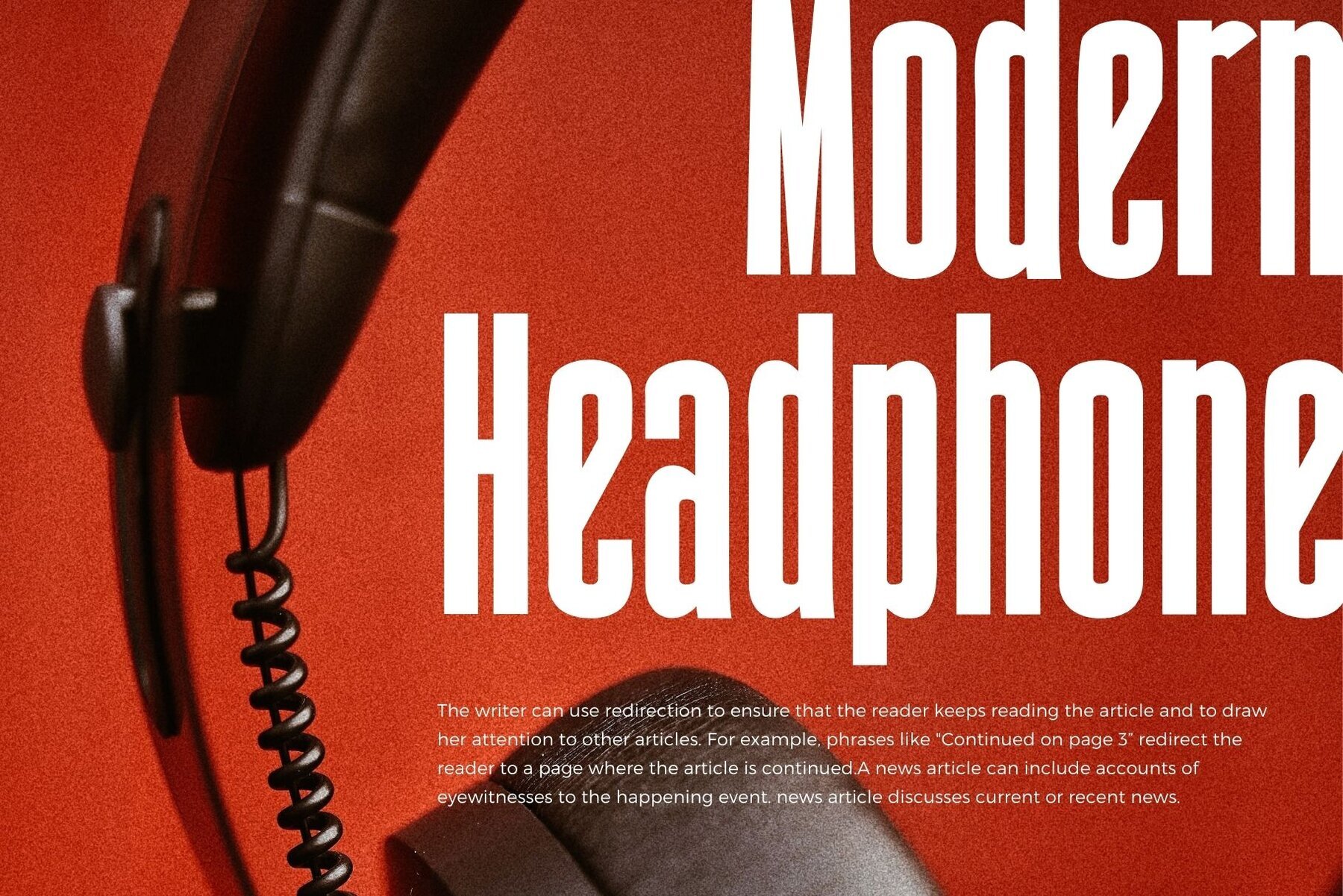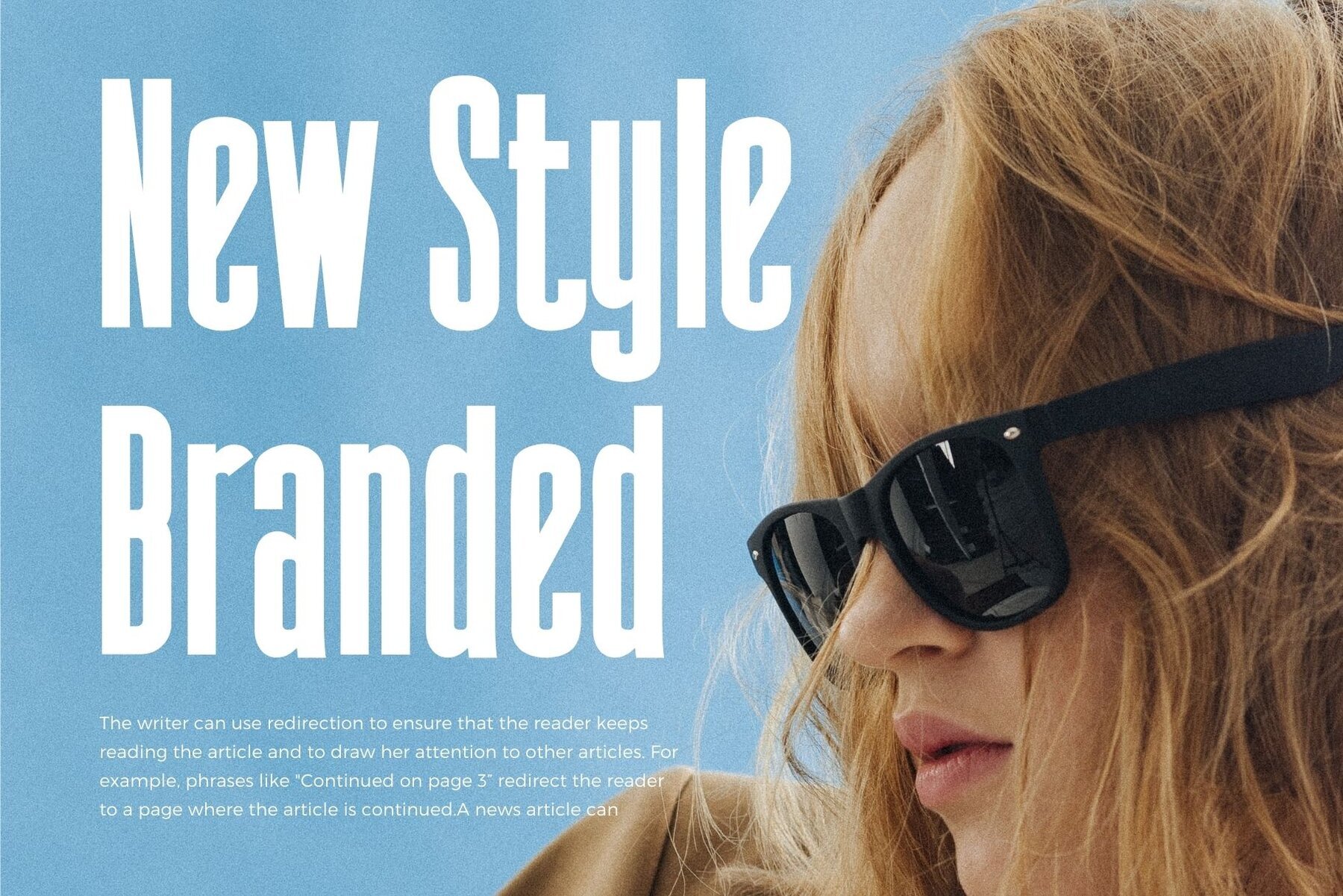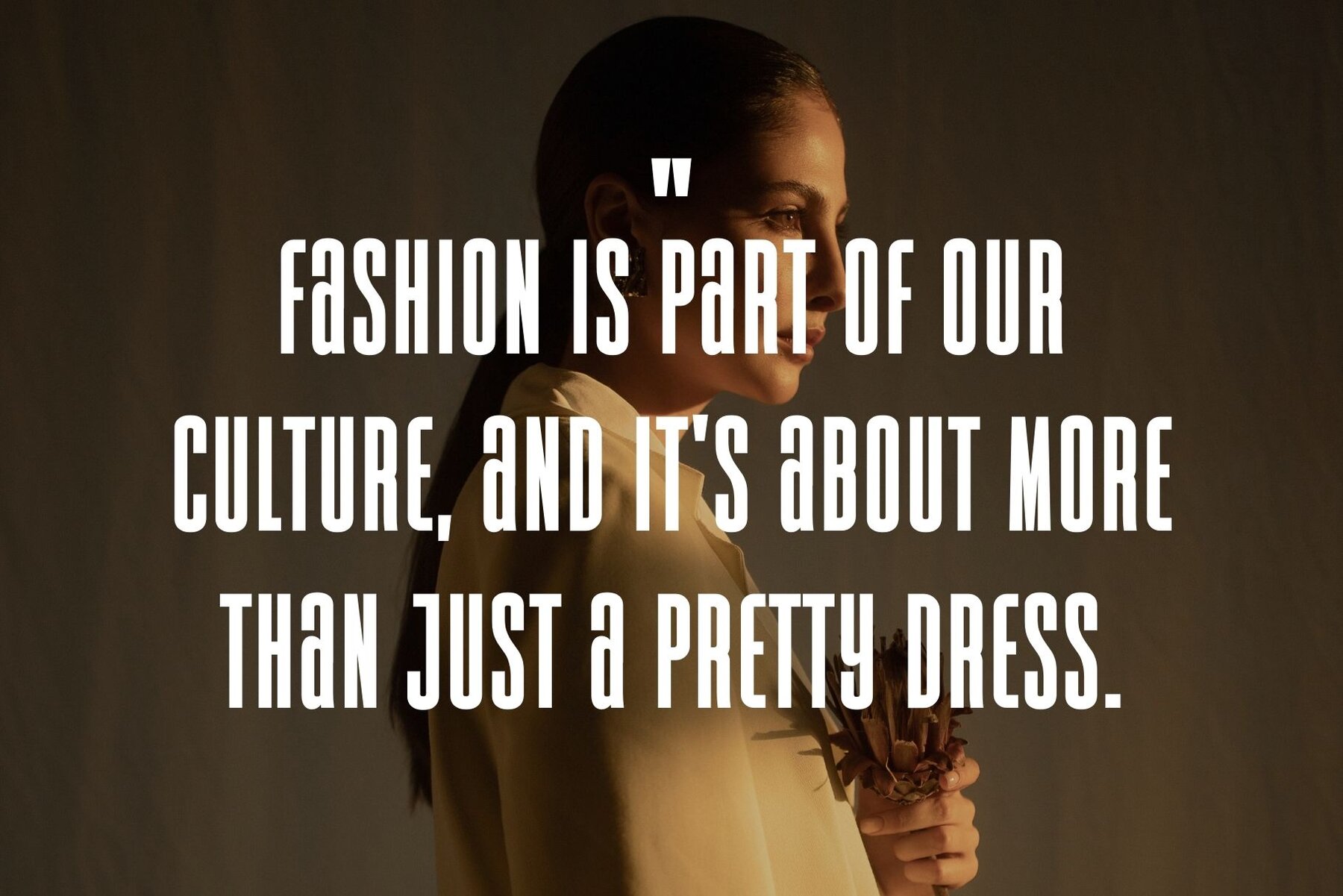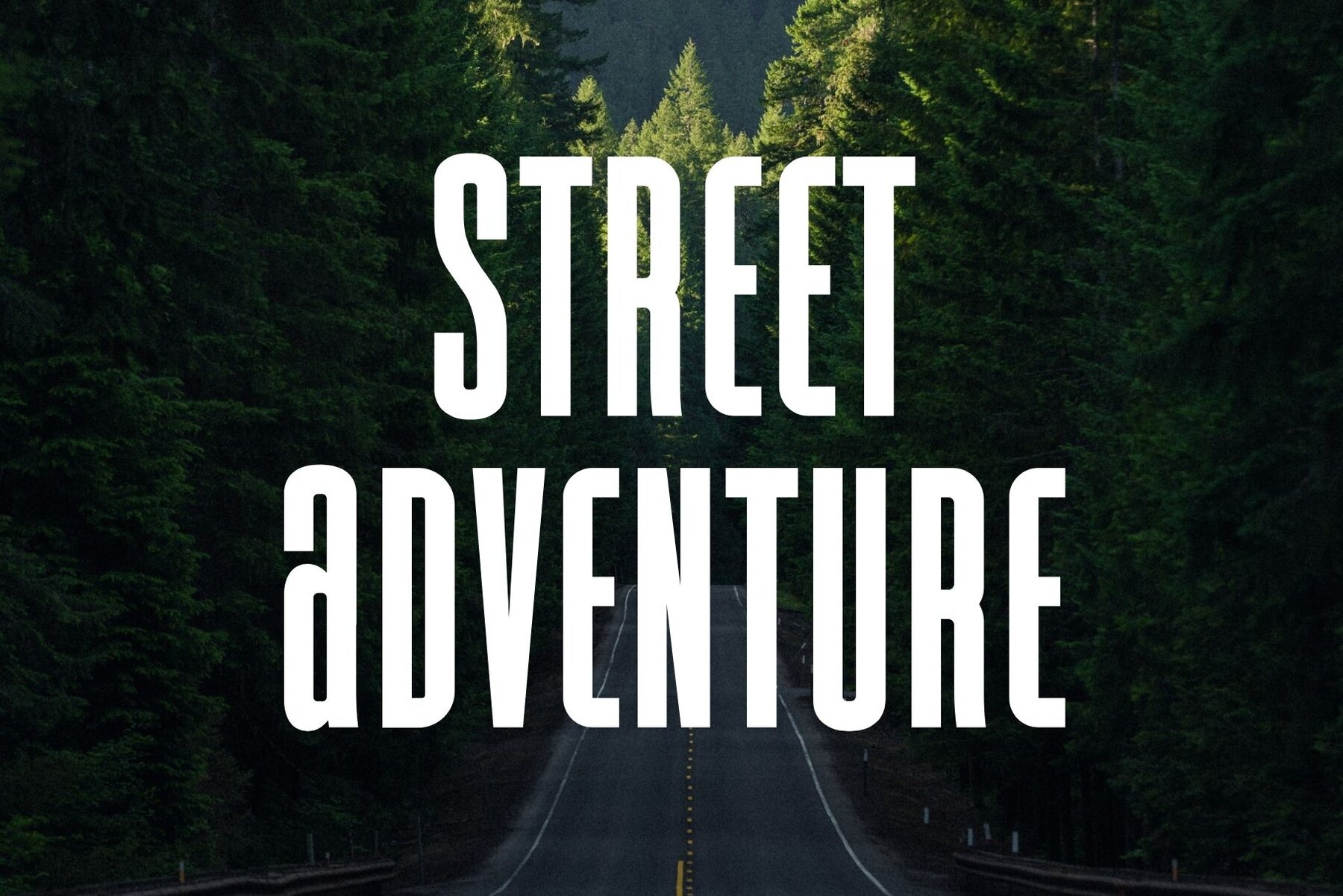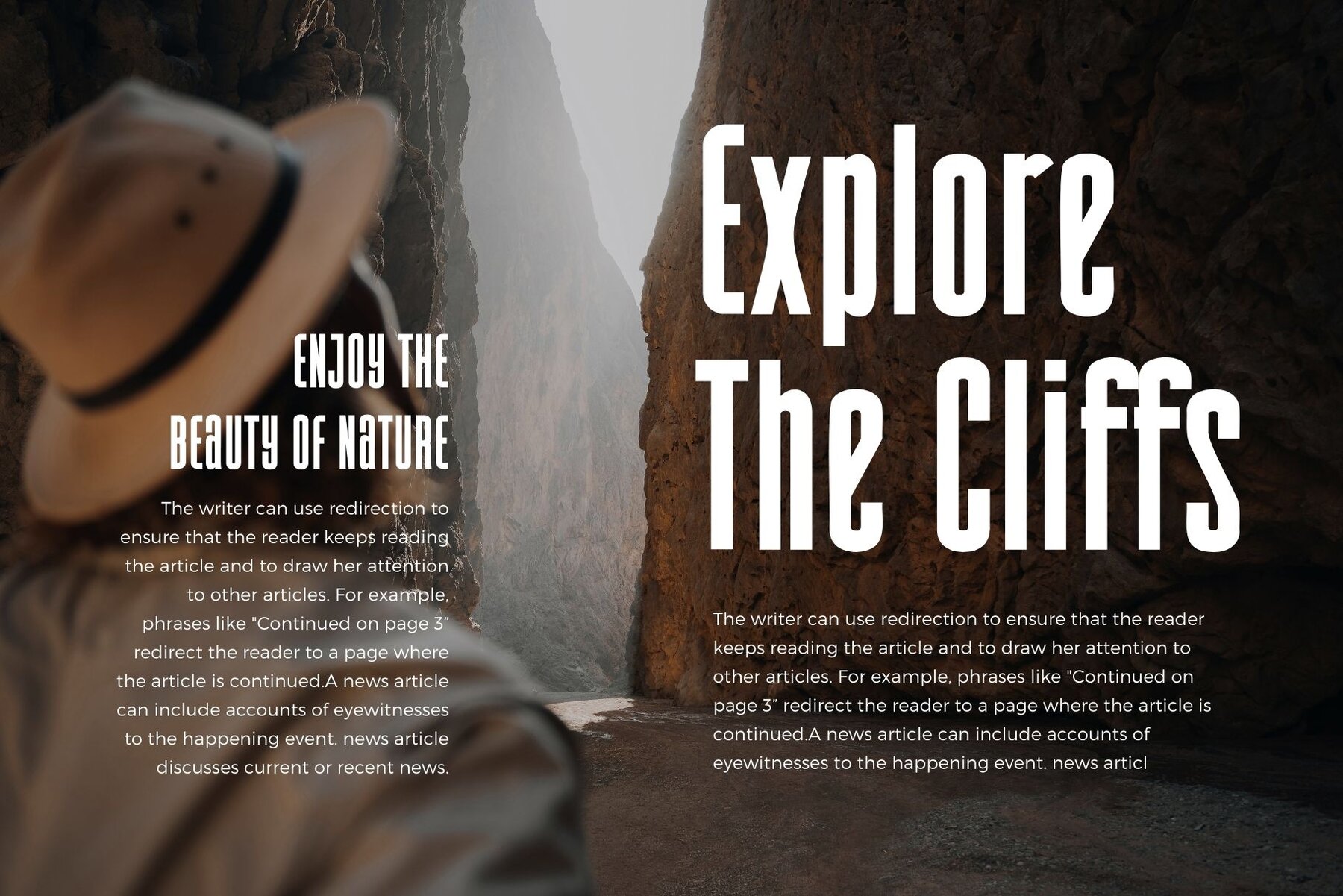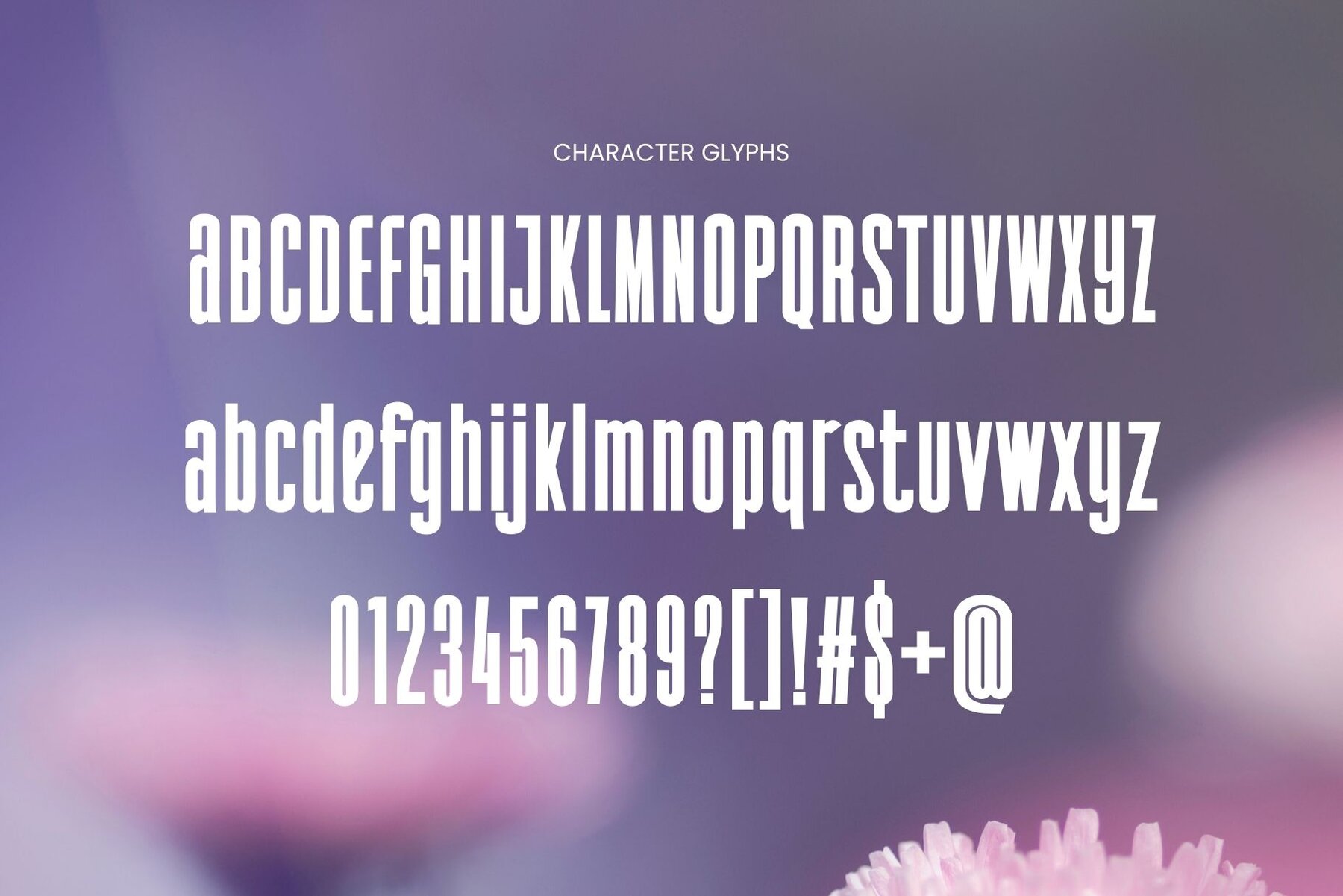
Types by Graphicxell: Minimalist Logo Inspiration
Discover a minimalist typeface by Graphicxell, ideal for a variety of design projects. Whether you're creating templates, brochures, videos, or working on advertising and branding, this font offers the flexibility you need. It's perfect for logos, invitations, and elegant crafting, providing beauty and sophistication to your design layout.
• Design Versatility – Suitable for templates, brochures, and videos.
• Branding Power – Ideal for advertising and logo creation.
• Elegant Crafting – Perfect for invitations and beauty design projects.